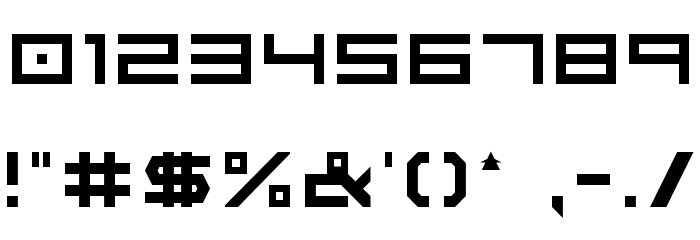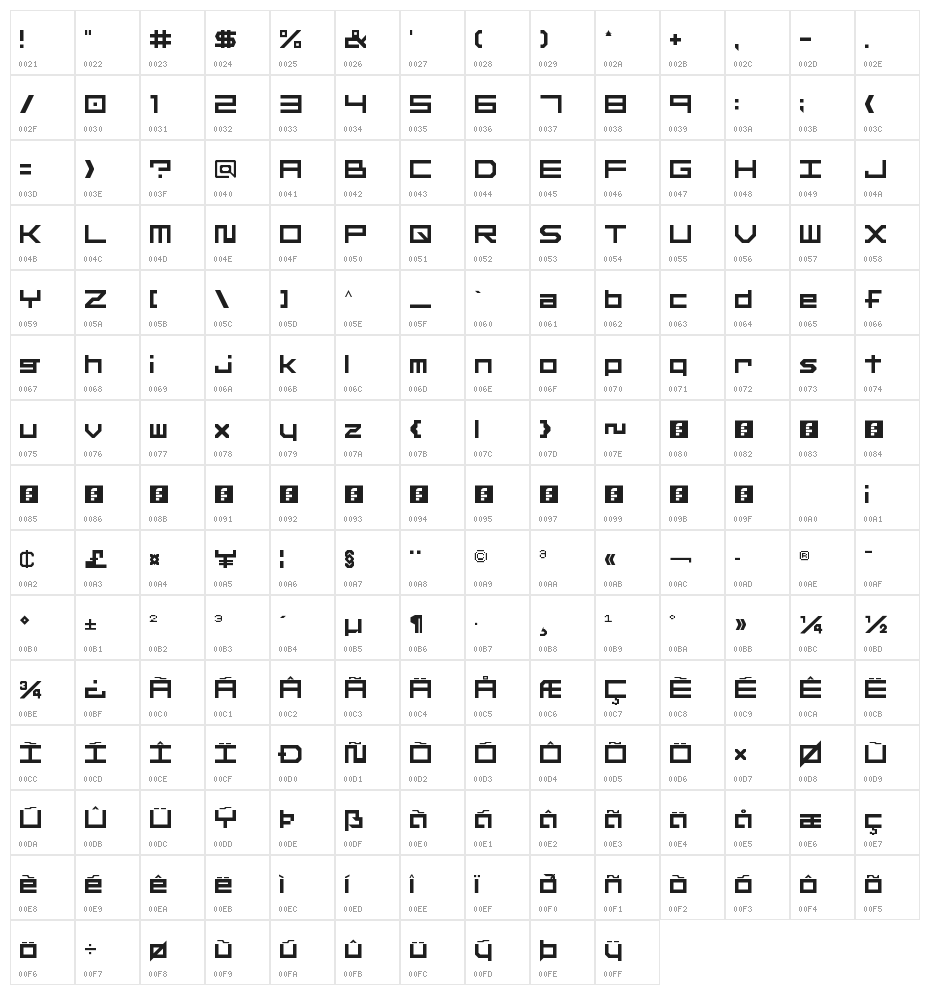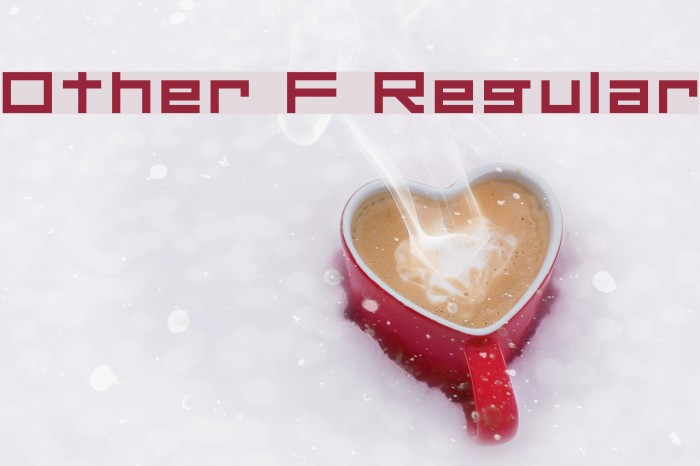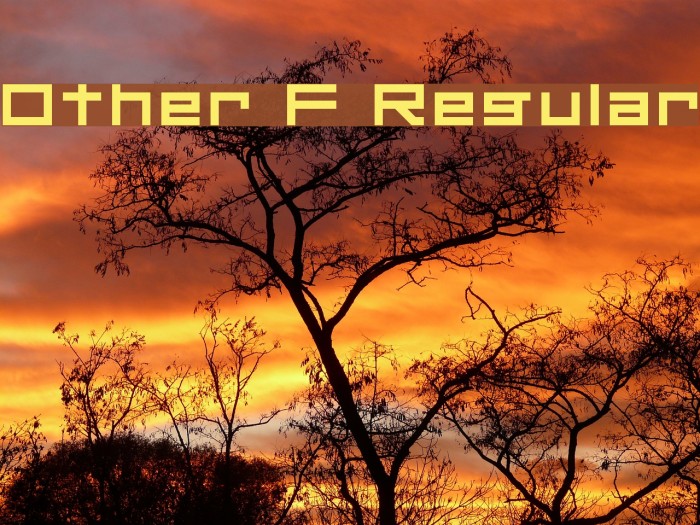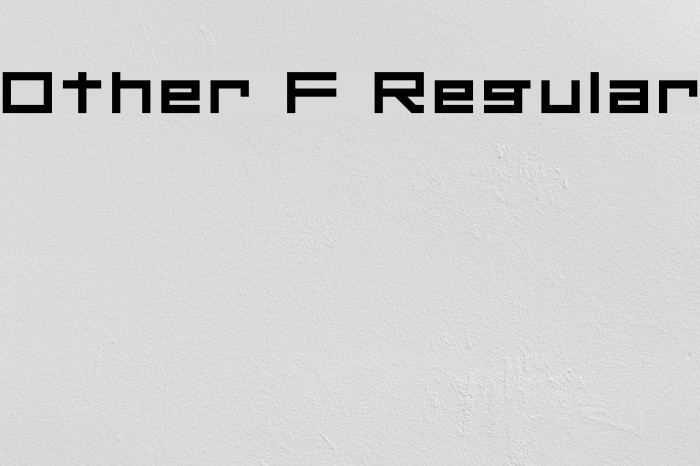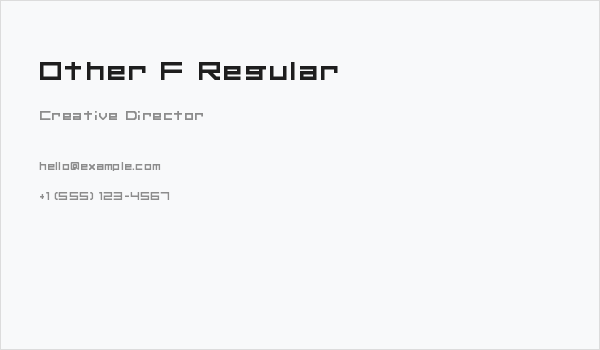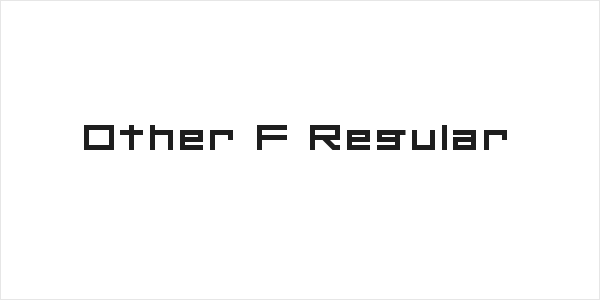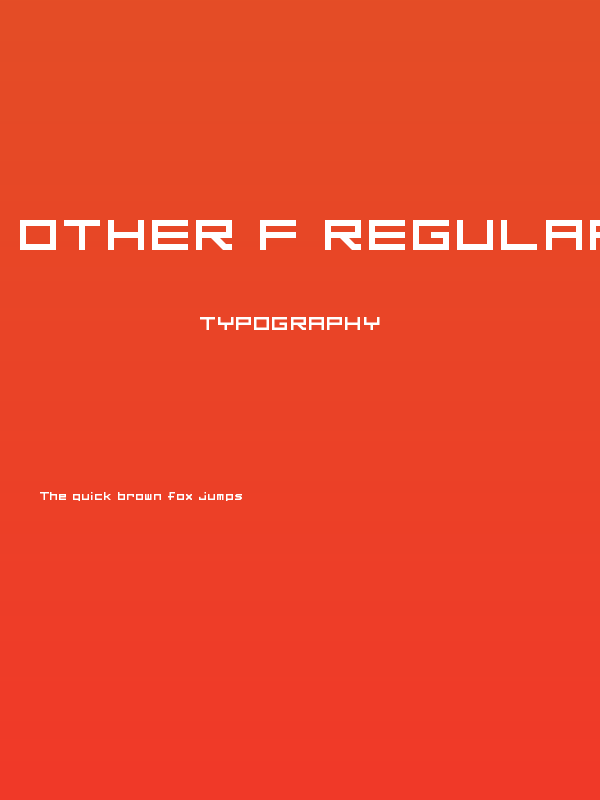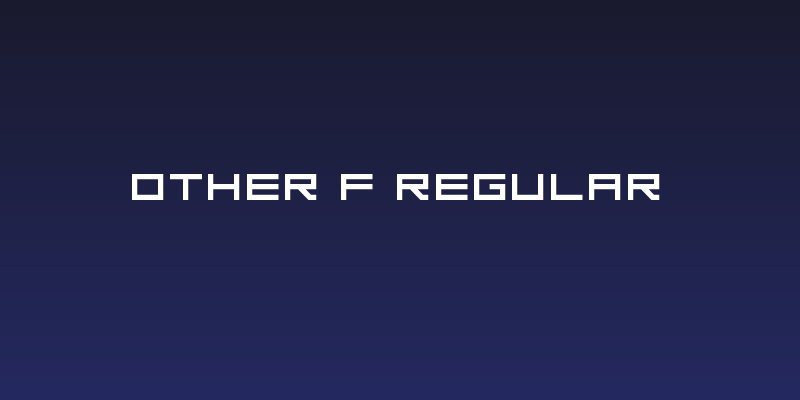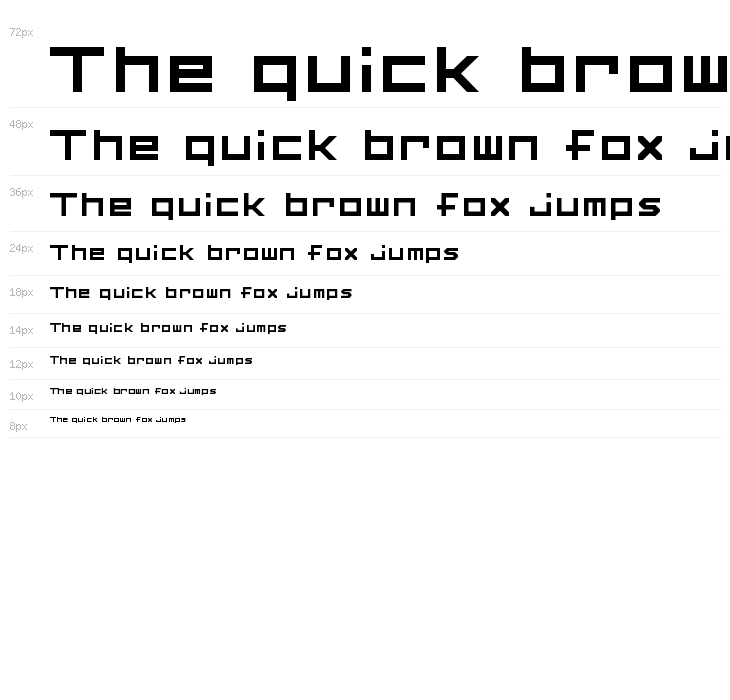
Other F Regular Font
Other F Regular Description
This font features a bold, geometric design with a modern and futuristic aesthetic. The characters are constructed with sharp angles and straight lines, giving it a digital or tech-inspired look. The uppercase and lowercase letters maintain a consistent style, with a uniform height and width that enhances readability. The numerals and special characters follow the same geometric pattern, ensuring a cohesive appearance across all text. This font's unique style makes it stand out, ideal for projects that require a contemporary and edgy feel.
| Proposed Projects | Ideal for technology branding, digital interfaces, video game graphics, and futuristic posters. |